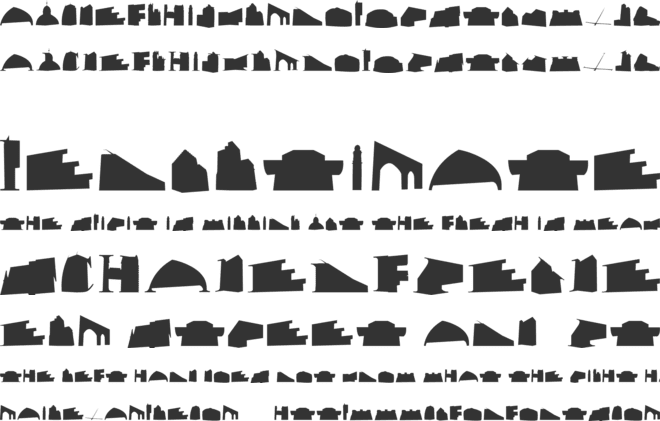
Mancitecture Font
A typeface based on the architecture of the city of Manchester, in the UK. The lowercase letters are the original Mancitecture font, the uppercase letters are the serif versions of the various buildings. See the project that spawned this typeface at http://www.emmabowey.co.uk/mancitecture.html